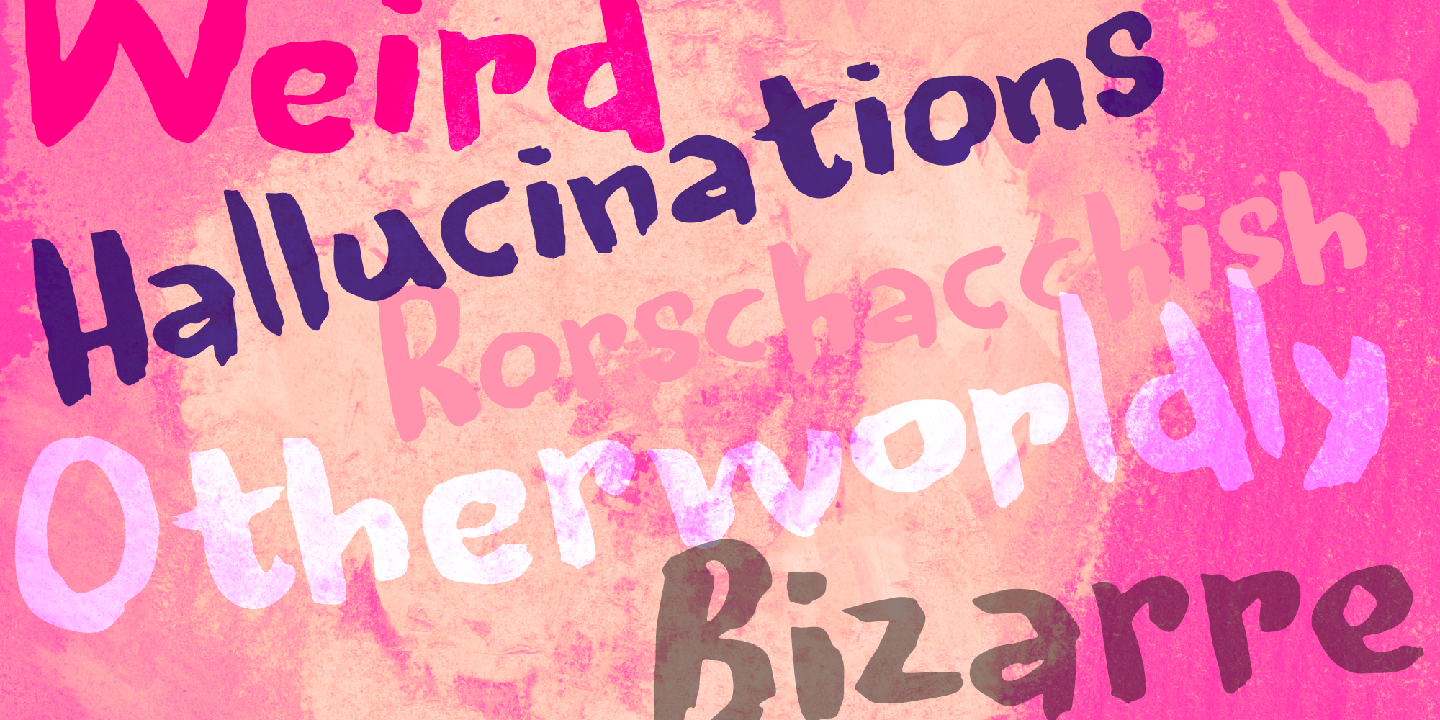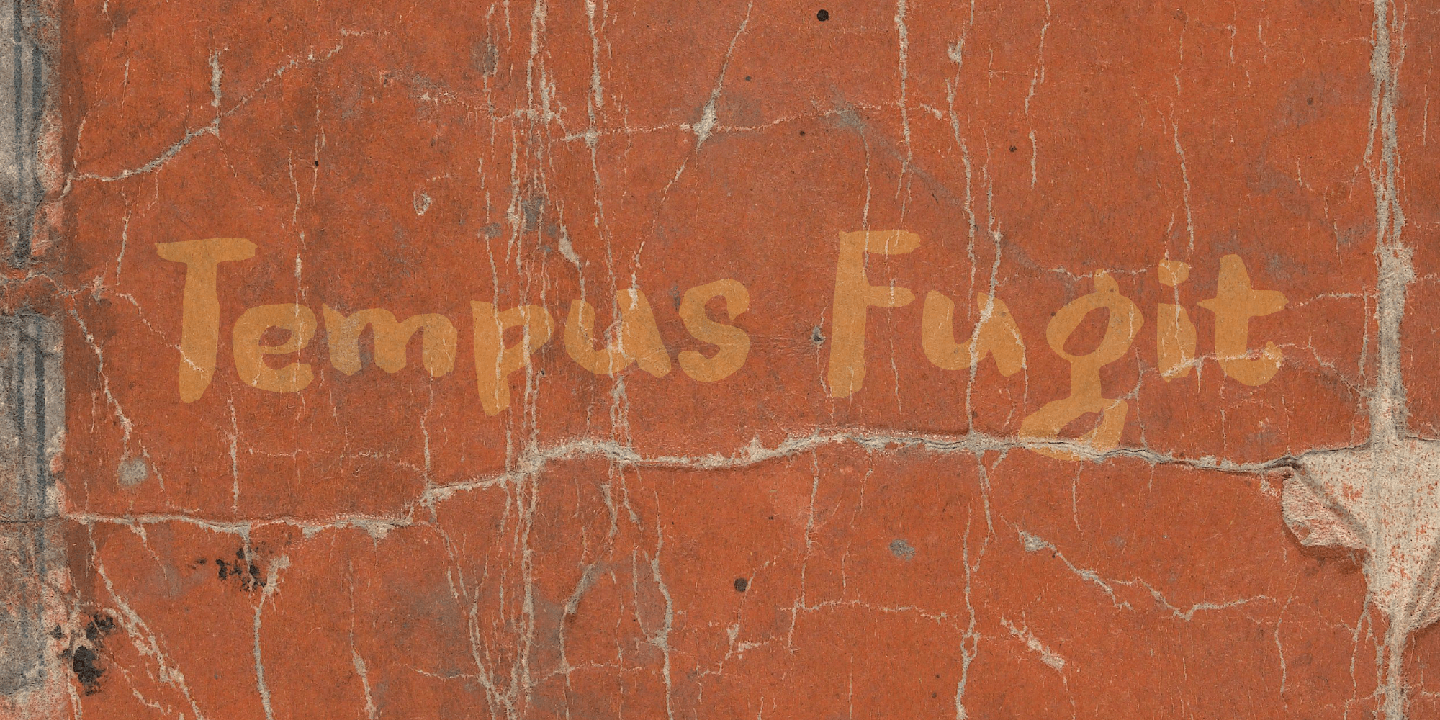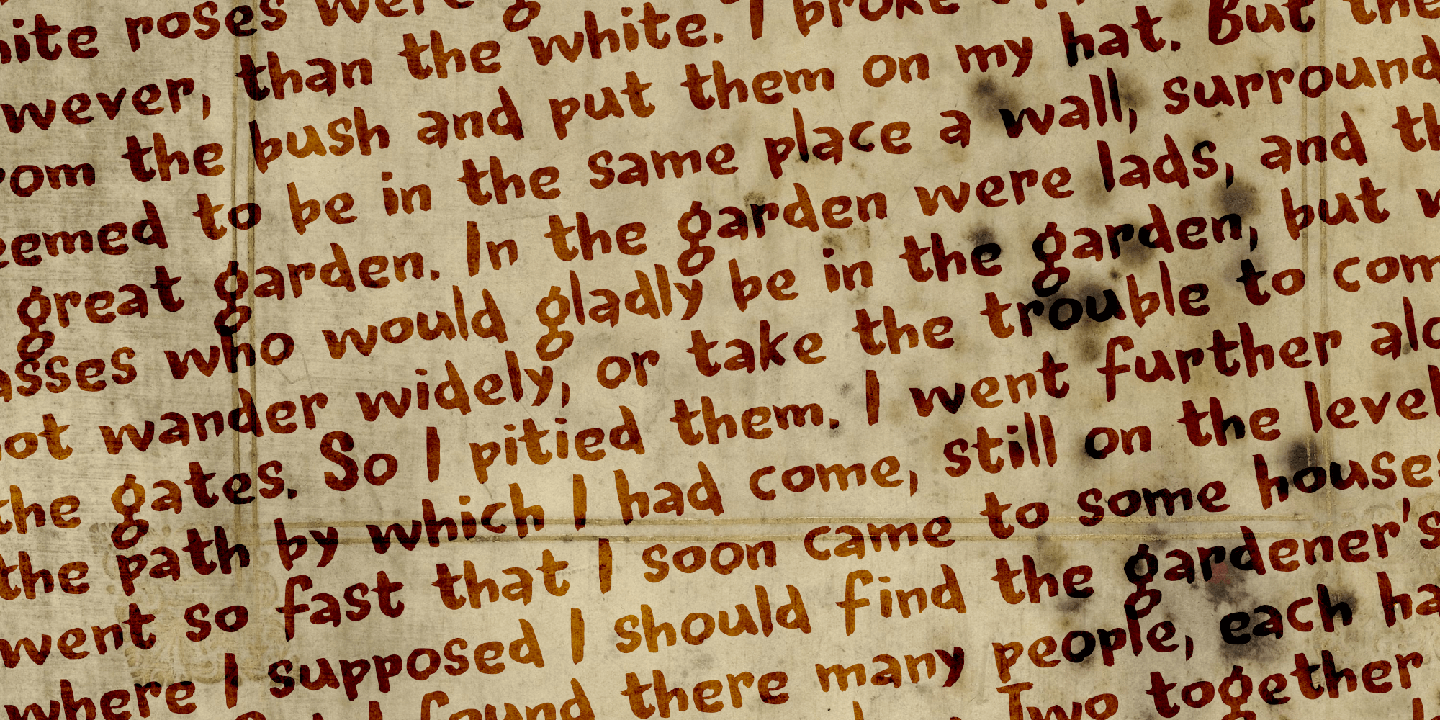
About Fat Inker
For once the name of this font corresponds with the way it looks: Fat Inker is a fat, inky font. I made it with a Chinese brush and ink, Fat Inker is a nice poster font and it comes with extensive language support and some cool discretionary ligatures…